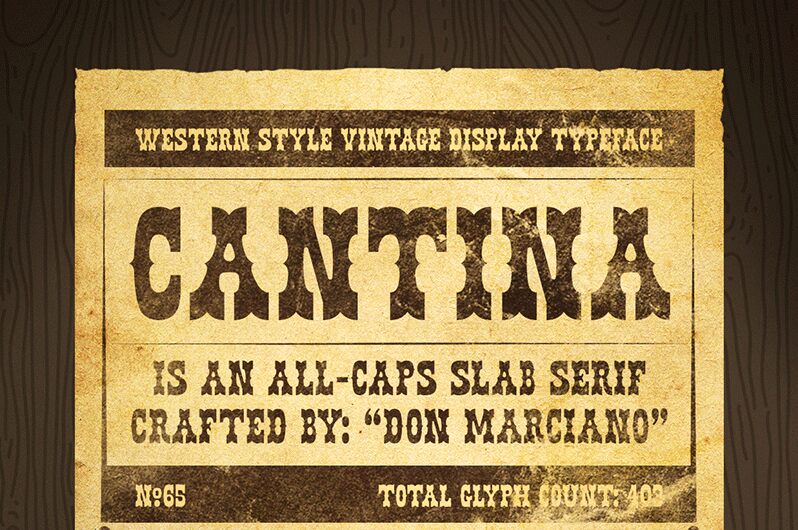
Cantina, the daring display font designed by Juan Miguel Castillo, is the perfect typeface for any bold western project. With its extra-condensed width and bold weight, this font commands attention and adds an adventurous touch to any design. Use Cantina for posters, logos, or even website titles - wherever you want to make a statement with your typography. Embrace the wild west spirit and add some character to your next project with Cantina.